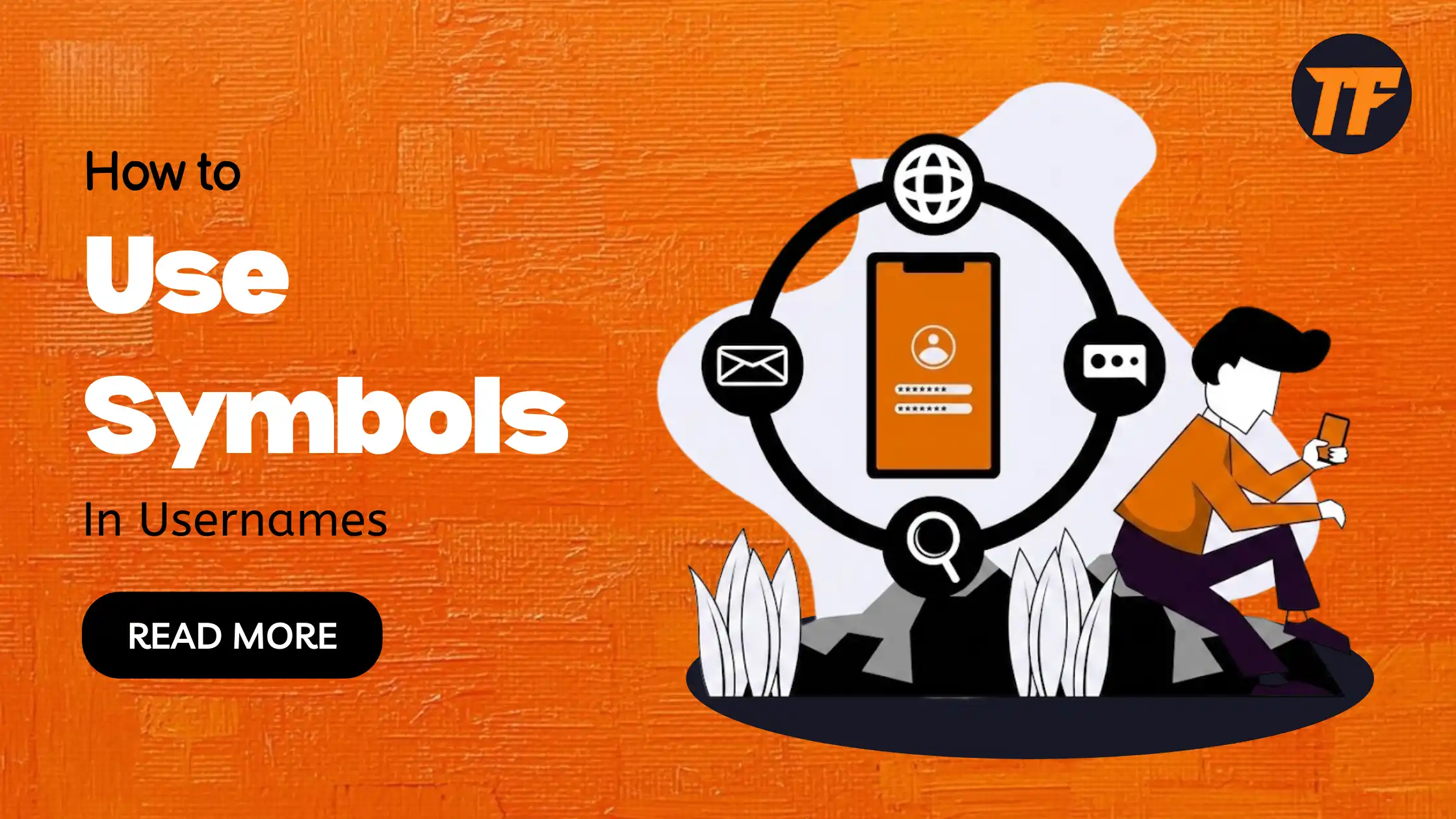
Symbols can make a username look more unique, personal, and visually appealing. They can help separate words, highlight certain parts of a name, or create a specific style. Common options include underscores, dots, dashes, special characters, Unicode symbols, and emojis.
However, not every platform supports the same characters, so it is important to check the rules before using them.
This guide explains how to use symbols in usernames, the different types available, their benefits, and the limitations to consider when creating a username for social media, gaming, or other online platforms.
Symbols in text are special characters that are not part of the standard alphabet or numbers. These include basic punctuation marks like underscores (_), dashes (-), and dots (.), as well as special characters such as @, #, $, %, and &. They can also include Unicode symbols like stars, arrows, or decorative shapes.
In usernames, symbols are used to change the appearance of a name or make it unique. They do not usually change the pronunciation, but they affect how the name looks visually. Different platforms support different sets of symbols, so availability can vary.
Using symbols in usernames can improve creativity and uniqueness, but it needs to be done carefully. A well-designed username should still be easy to read, remember, and type. Below are some best practices to follow when adding symbols.
Avoid using too many symbols in one username. A name that is overloaded with special characters can become hard to read or confusing. Simple combinations are usually more effective and look cleaner across platforms.
Place symbols in a way that improves the structure of the username rather than distracting from it. For example, using one or two symbols to separate words or highlight parts of the name is usually enough.
A good username should be easy for others to recall. If the symbols make the name too complex, people may forget it or struggle to type it correctly when searching for you.
Not all platforms support every type of symbol. Before finalizing a username, make sure the chosen symbols are allowed and display correctly on the platform you want to use.
Try not to rely on random symbol patterns or overly common styles. Instead, choose a design that feels intentional and matches your personal or brand identity.
Symbols used in usernames generally fall into a few main categories, each giving a different font look and feel to a name.
These are the most common and widely supported symbols across platforms.
· Underscores (_)
· Dots (.)
· Dashes (-)
· Numbers mixed with text
These add a bit more style but are supported on fewer platforms.
· @ and # symbols
· Currency signs like $
· Ampersands (&)
These give usernames a more stylish or artistic look and are popular on games and social platforms such as Twitch.
· Stars (★ ☆)
· Arrows (➤ ➔)
· Hearts, crowns, and other decorative shapes
· Small caps or stylized letters (ᴀʙᴄ)
Some platforms allow emojis directly in usernames, which can add color and personality.
· Simple emojis like fire or heart symbols
· Face or object emojis for personal branding
Each type works differently depending on the platform, so it helps to test a symbol before locking in a final username.
Using symbols in usernames is very common across social media platforms, gaming communities, and online forums. They help users create names that are more unique, flexible, and visually appealing. Below are the main benefits explained in simple terms:
Symbols help a username look different from plain text names. This makes it easier for your profile to stand out, especially on platforms where many users may have similar or repetitive names. Even a small symbol change can make a name more noticeable in search results or friend lists.
A lot of simple or common usernames are already taken. Adding symbols allows you to adjust your preferred name without changing it completely. This gives you more chances to secure a username that still reflects your original idea while remaining available.
Some users prefer usernames that look stylish, clean, or creative. Symbols can improve the visual appearance of a name by adding structure or decoration. Depending on the style, they can make a username look modern, minimal, or more artistic.
For gamers, streamers, or content creators, symbols can make usernames more memorable and recognizable. A consistent and well-designed username helps build a stronger online identity, making it easier for others to remember and find your profile across platforms.
Yes, symbol usernames are safe as long as they follow platform rules and guidelines. They do not affect account security, but they should be easy to read and remember.